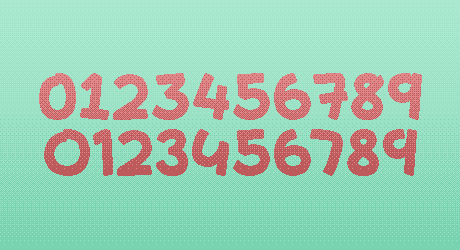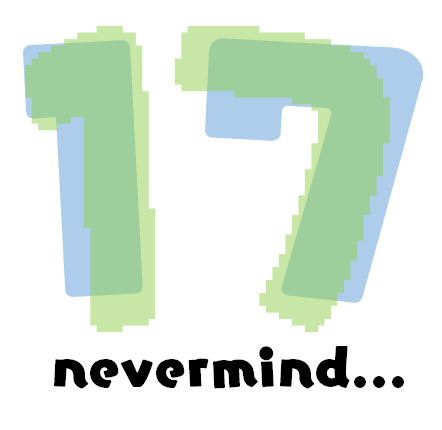
I actually have some more alternative ideas, but idrk if I'll actually make them, I like how it turned out even without them. Maybe I'll change or add something in the future.
Alts:
1  =  !  (exclamation mark)
3  =  # (number sign)
4  =  $ (dollar sign)
7  =  & (ampersand)
8  =  * (asterisk)
9  =  (  (left parenthesis)
0  =  )  (right parenthesis)
Fat and awesome number glyphs.
reminds me of a video game
wait, the game was big brain academy
@lucapri the font used in big brain academy (FOT-Yuruka Std) was actually one of the main inspirations for this font.
oh so that's why it feels similar
Lovely cartoony chunky pixel work.